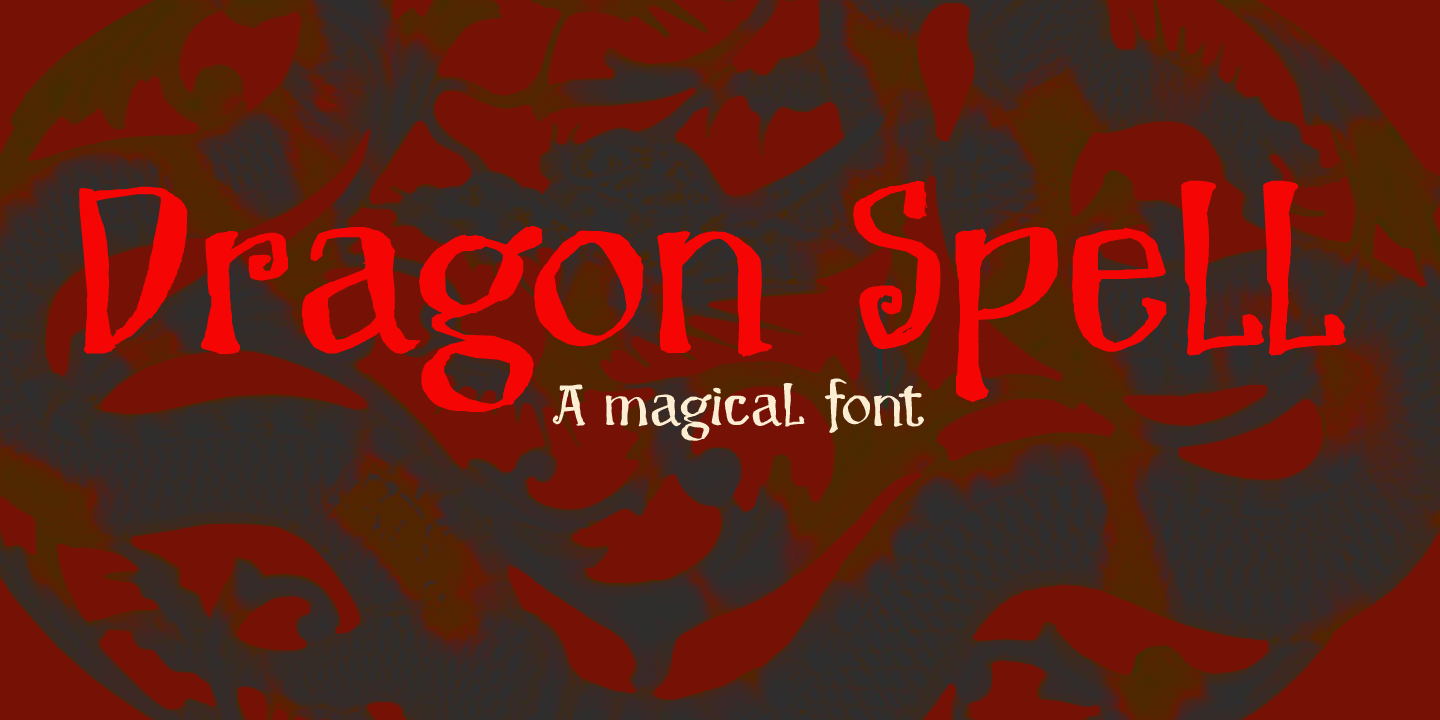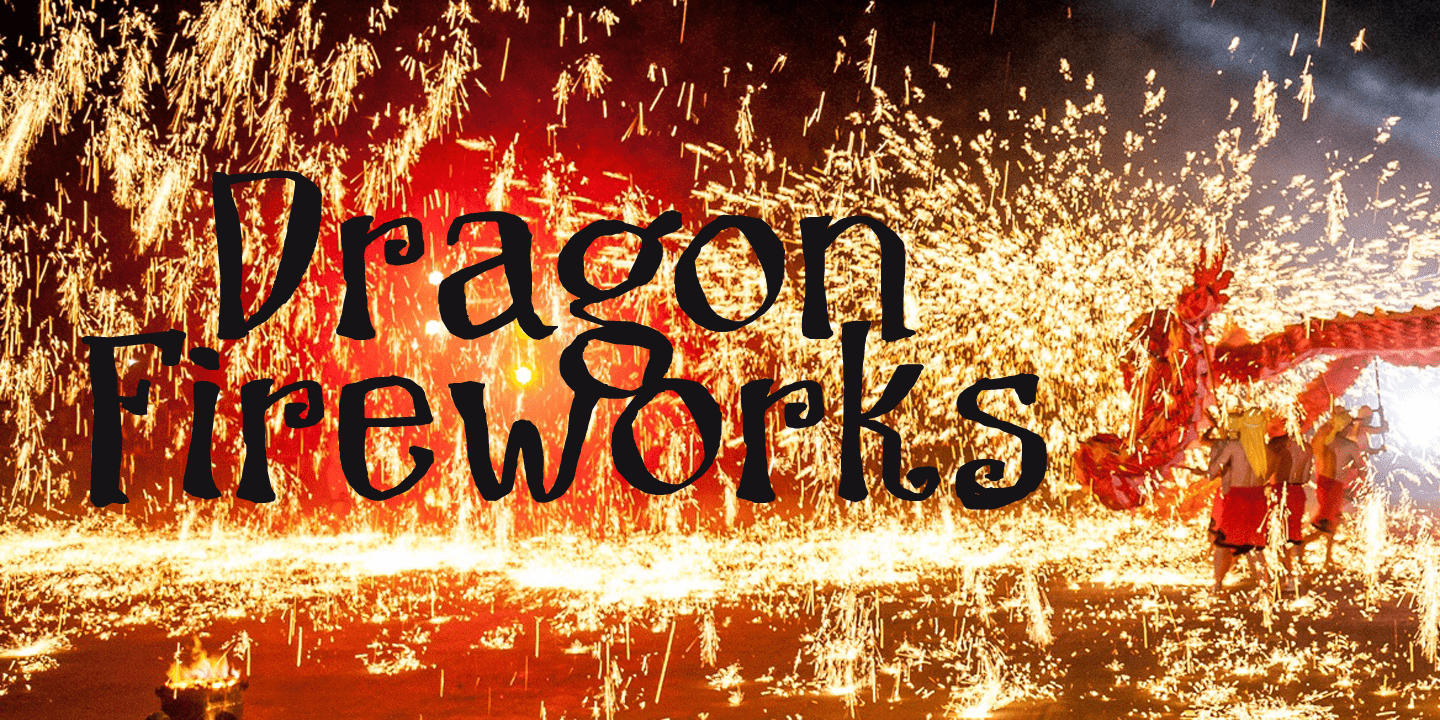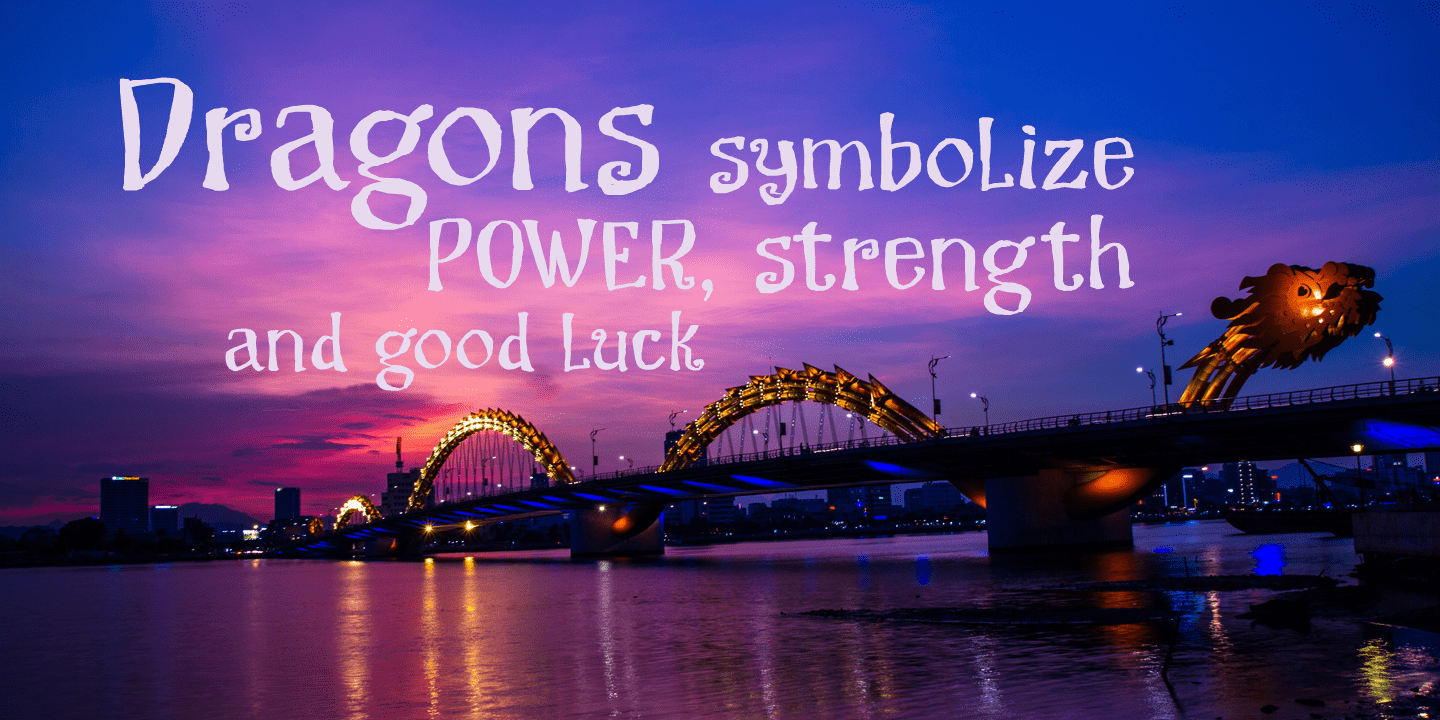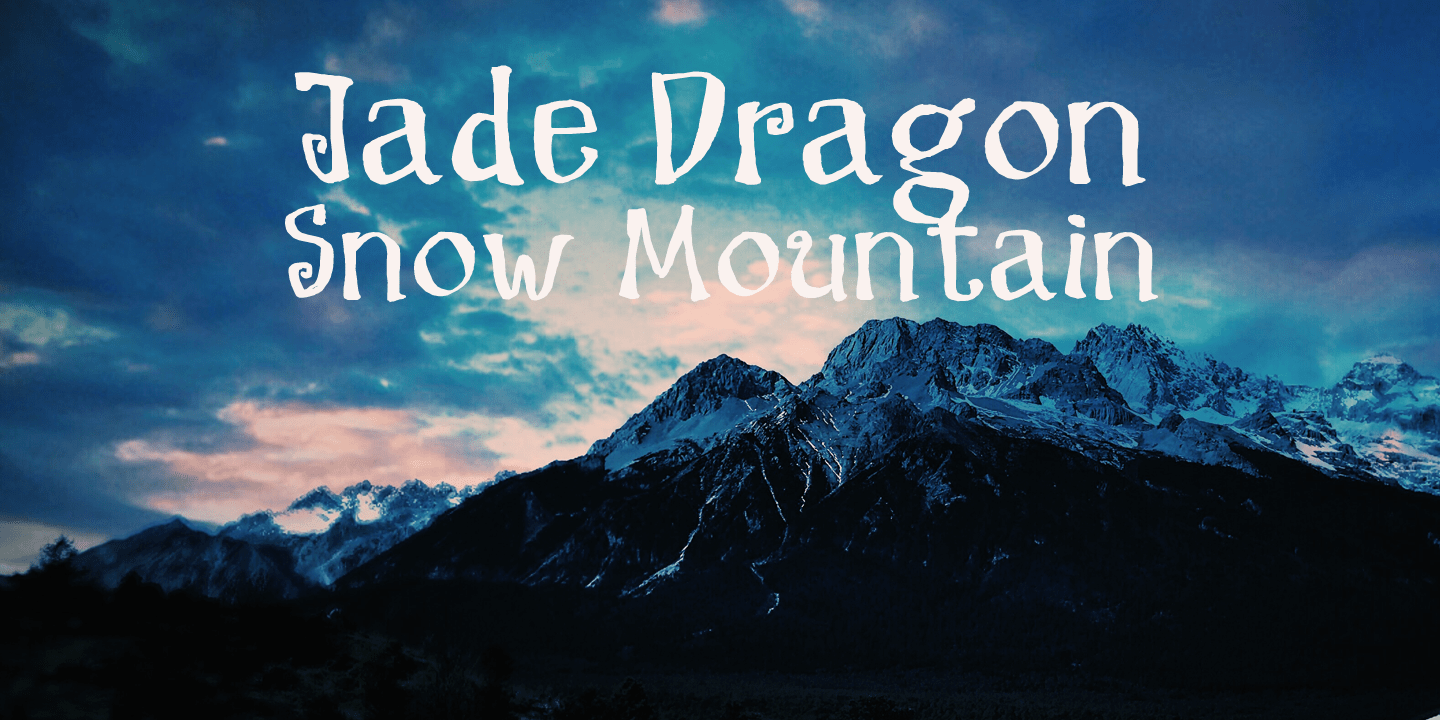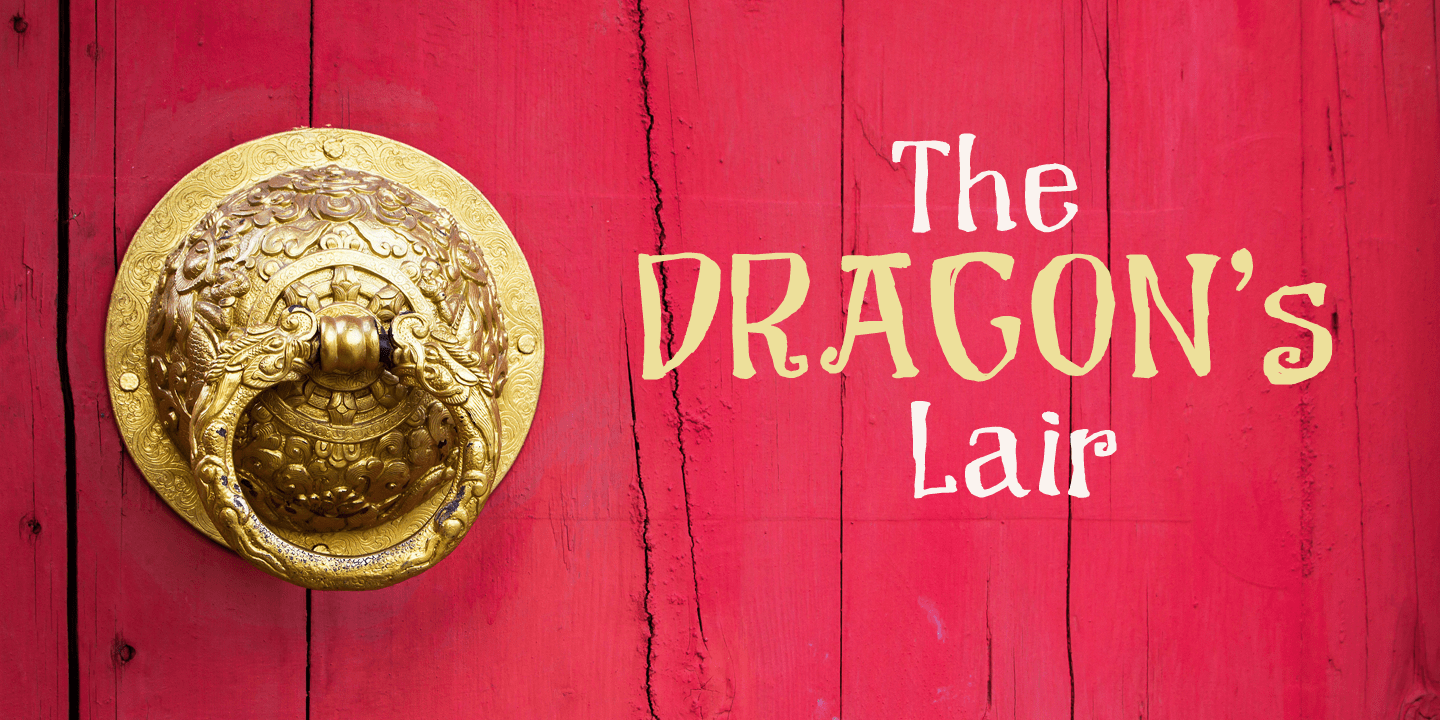
Dragon Spell
Dragon Spell is a magical handmade font. It was created with a small brush and Chinese ink. Use it for your spells, your books of magic, or some creepy halloween cards. Dragon Spell comes with a realm of diacritics.